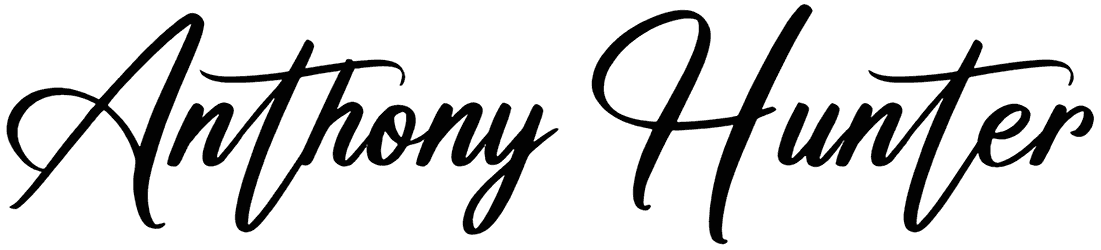
Anthony Hunter Font
When you look at the Anthony Hunter font, its sophisticated design immediately grabs your attention. This calligraphy font has a luxury style and is a good choice for various cases such as magazines, brochures, postcards, and logos.
This fancy script font provides two different versions with sharp tails lettering that give you more variety and expand your selection range, so give it a try and take delight!